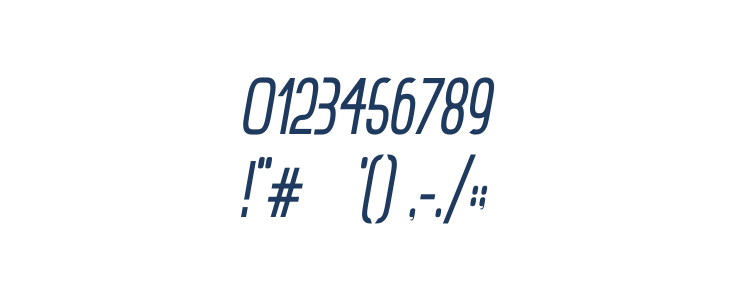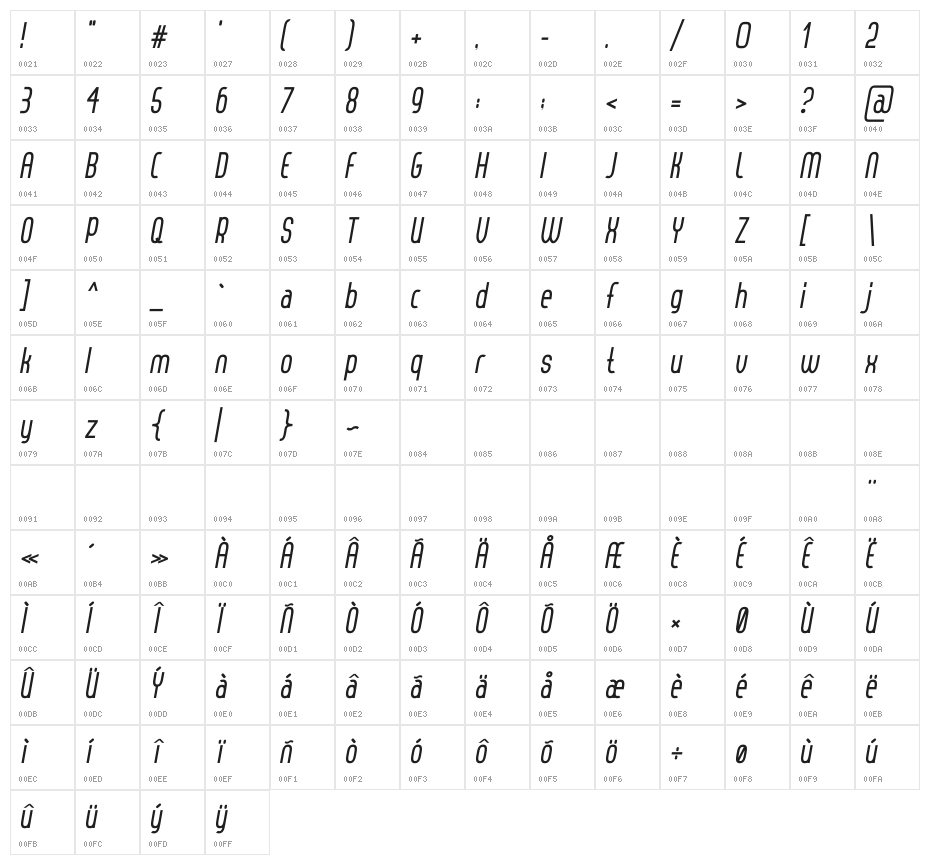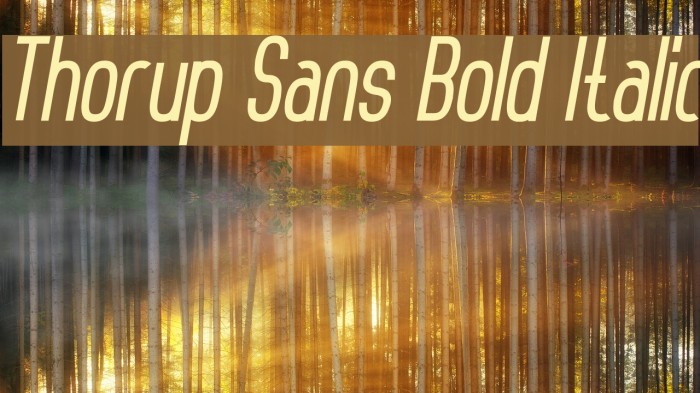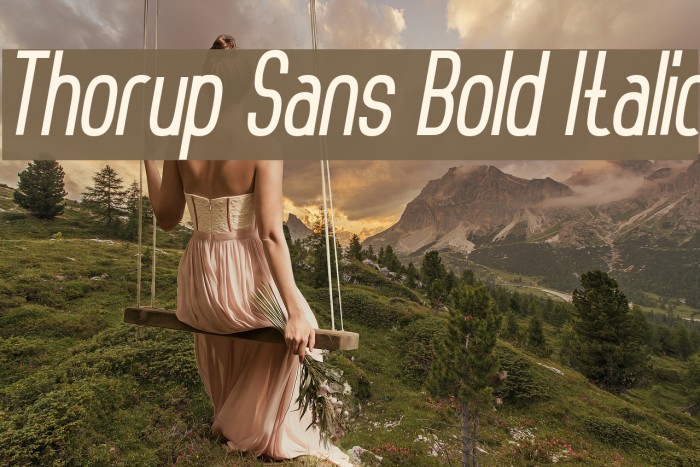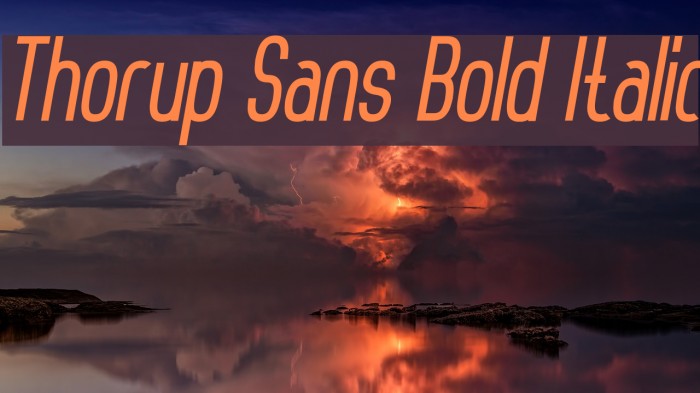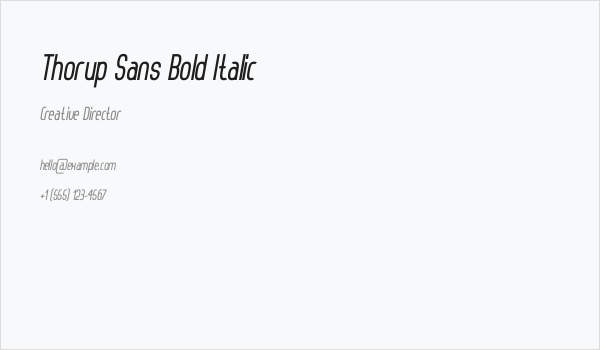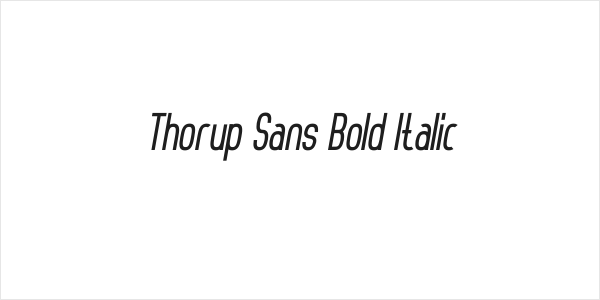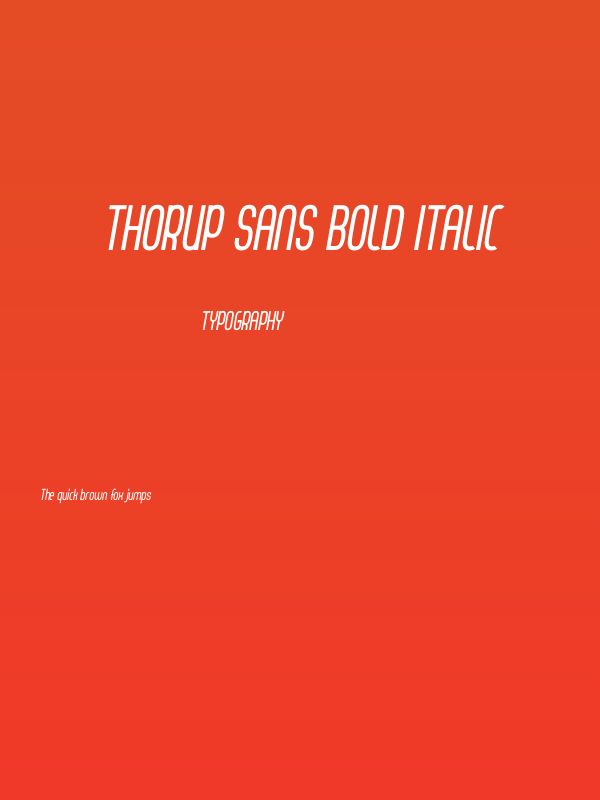
Thorup Sans Bold Italic Font
Thorup Sans Bold Italic Description
This font features a bold and italicized sans-serif style, characterized by its sleek and modern appearance. The letters are slightly condensed, giving it a streamlined look that enhances readability while maintaining a stylish edge. The strokes are consistent in thickness, providing a uniform appearance across all characters. The italic slant adds a dynamic and forward-moving feel, making it suitable for contemporary design projects. The numerals and special characters are designed to match the overall aesthetic, ensuring cohesion throughout any text. This font is versatile, offering a clean and professional look that can be adapted to various design needs.
| Proposed Projects | Ideal for branding, advertising, and editorial design projects where a modern and dynamic look is desired. |